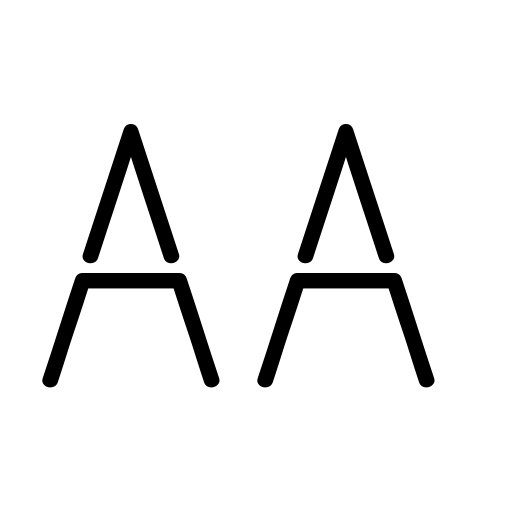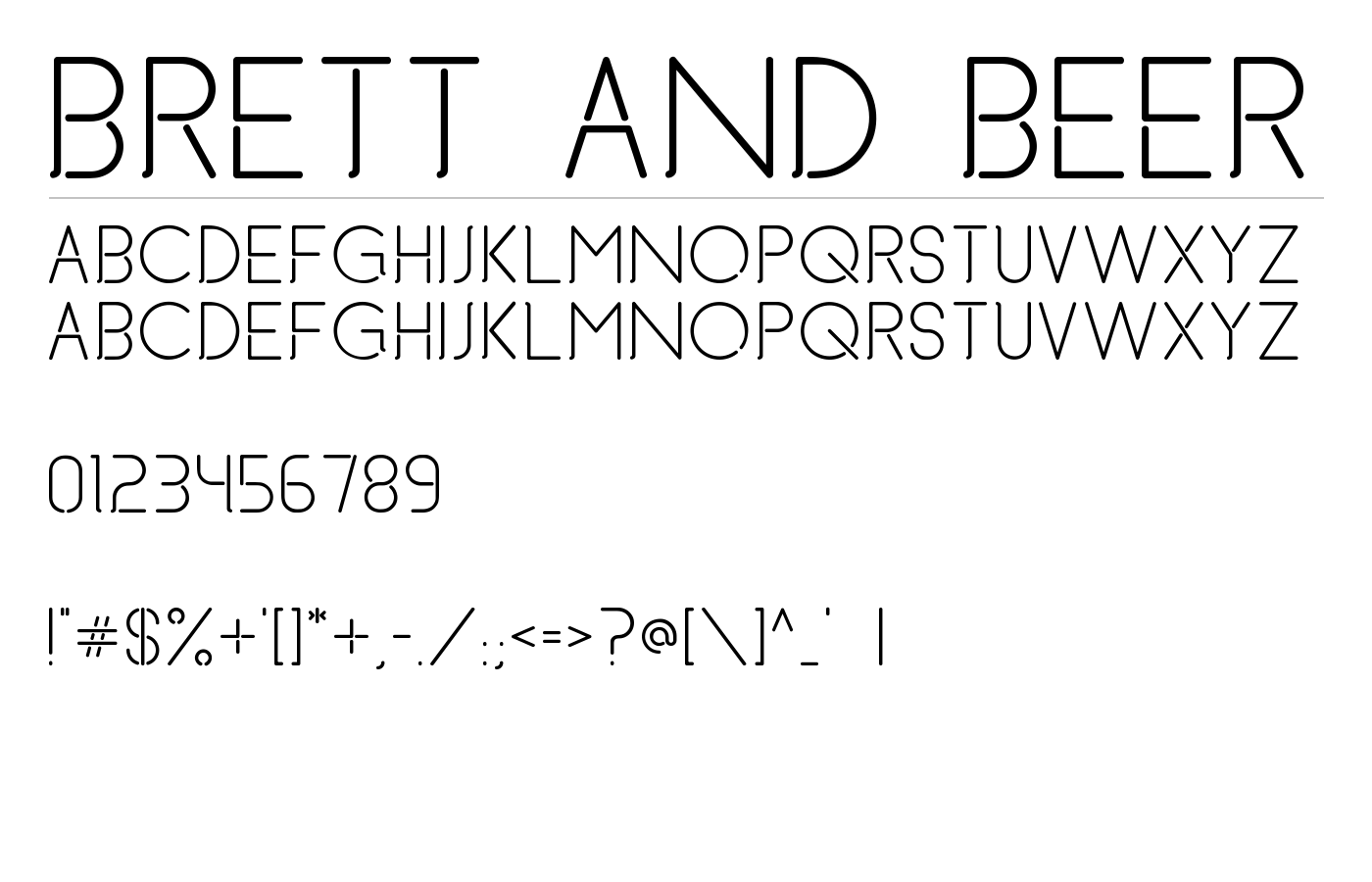
Brett and Beer is a sleek, modern sans serif font characterized by its thin, geometric lines and a slightly condensed width that gives it a clean, technical feel. Its minimalist design features subtle rounded edges and unique, stylized letterforms that blend elegance with a contemporary, futuristic vibe, making it ideal for branding, headlines, and editorial use where a refined but distinct look is desired. This font works particularly well in fashion, technology, or lifestyle projects that aim for a sophisticated yet approachable aesthetic.
Brett and Beer Font
About Brett and Beer Font